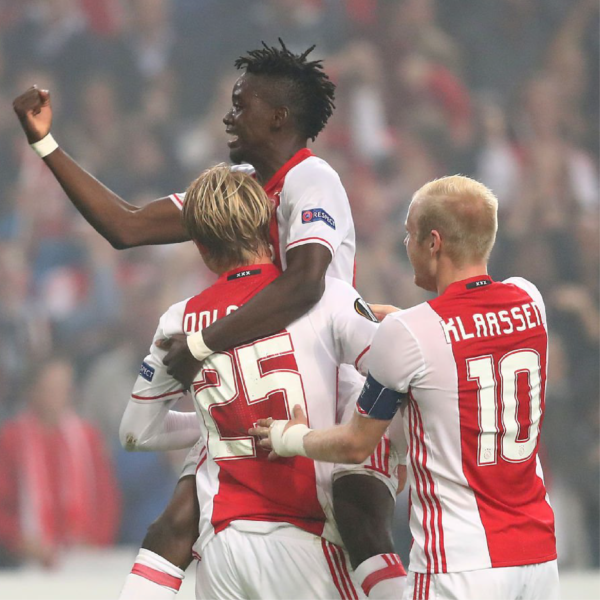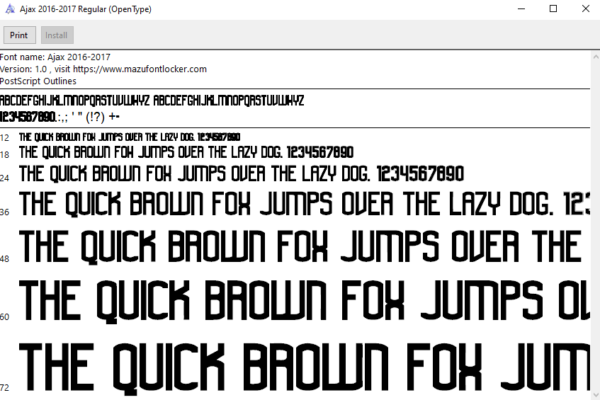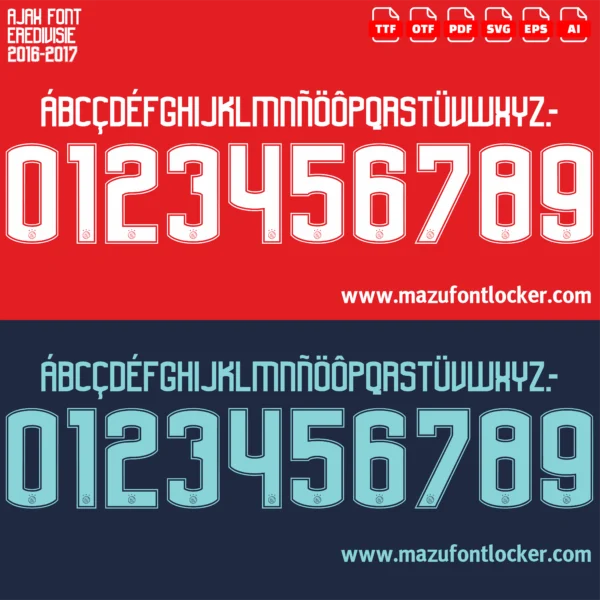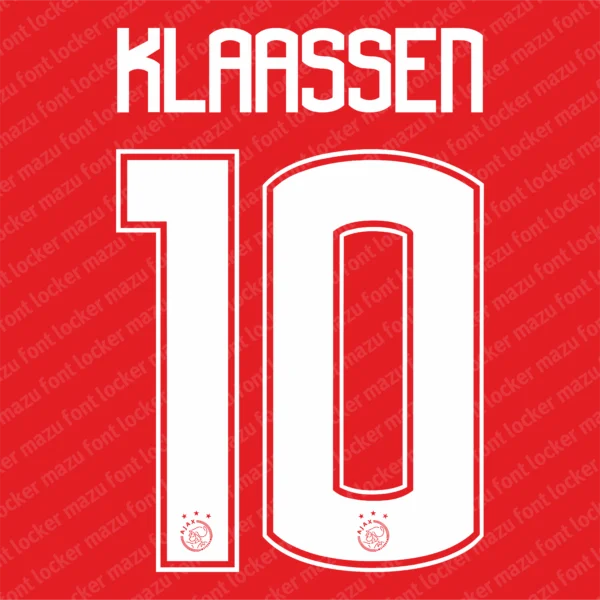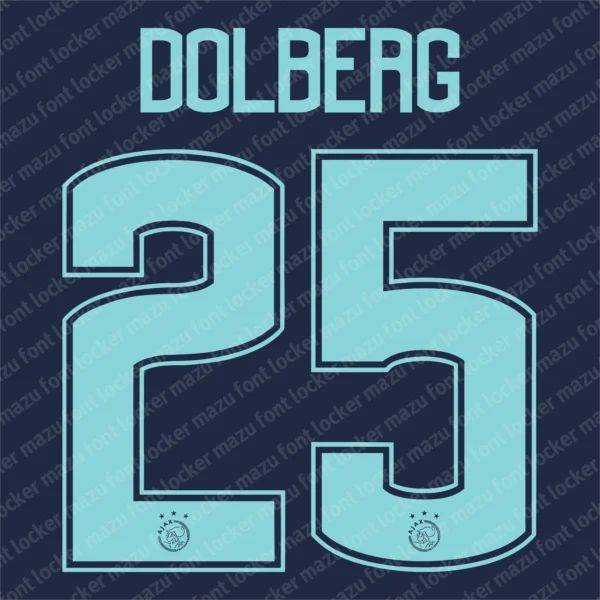
Ajax Amsterdam 2016-2017 Font Vector – Authentic Classic Kit
This font captures the bold, fearless, dynamic, and ultra-premium lettering that perfectly reflects Ajax Amsterdam’s legendary youth academy heritage combined with the fierce, unstoppable, total football spirit of that golden squad — delivering unmatched elegance, intense passion, elite craftsmanship, and pure Amsterdam fire for premium jersey mockups, epic football designs, spectacular sports visuals, standout fan creations, and professional branding projects.
Ajax Amsterdam 2016-2017 Font Vector – Authentic De Godenzonen Typeface
The Ajax Amsterdam 2016-2017 Font Vector is a premium typeface that accurately recreates the official match lettering worn by Ajax Amsterdam during the iconic 2016-2017 season. This high-quality vector font kit captures the bold, clean, and modern typography that represents the rich heritage, attacking philosophy, and youthful brilliance of De Godenzonen.
This font stands out because of its sharp vector precision and strong club identity. Every letter and number is crafted to match the exact style used on the players’ shirts during Ajax’s 2016-2017 campaign. Whether you are creating realistic kit templates or nostalgic Ajax-themed content, the Ajax Amsterdam 2016-2017 Font Vector gives your designs that authentic Johan Cruyff Arena atmosphere.
The letterforms in the Ajax Amsterdam 2016-2017 Font Vector are bold, modern, and highly readable. The strokes feature clean geometric construction combined with athletic styling, creating a professional appearance that stands out on jerseys while preserving Ajax’s legendary football heritage.
The numerals feature strong curves and clean edges, delivering a confident and premium appearance. This vector design ensures flawless scalability and excellent legibility across both print and digital applications.
• Full uppercase A–Z and numbers 0–9 in authentic Ajax Amsterdam 2016-2017 style
• Multilingual Latin character support including Dutch accents and special characters
• Includes the exact crest glyph placement used beneath player numbers
The 2016-2017 season was a memorable chapter for Ajax Amsterdam. Under the guidance of manager Peter Bosz, the young squad played attractive, high-pressing football that captured the imagination of fans across Europe. With stars like Davy Klaassen, Hakim Ziyech, and Kasper Dolberg, Ajax reached the Europa League final and showcased the continued strength of Dutch football talent development.